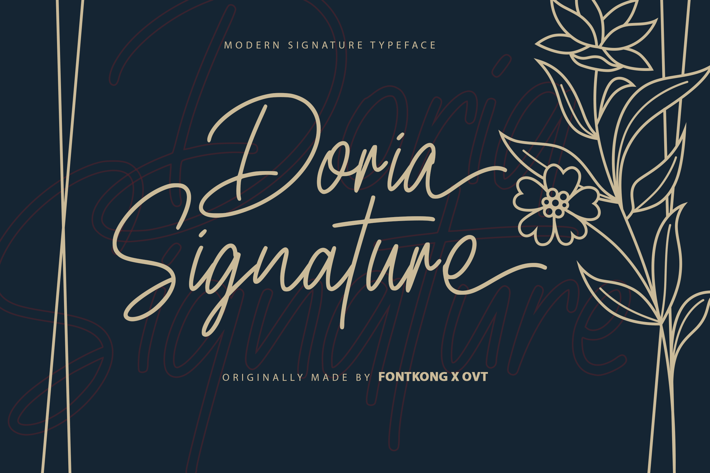
Doria Signature - A Modern Signature Typeface
Doria Signature is an elegant and stylish signature typeface designed to add a personal and sophisticated touch to your design projects. With its fluid strokes and graceful letterforms, Doria Signature is perfect for luxury branding, wedding invitations, stylish logos, and high-end stationery. This font combines the timeless beauty of handwriting with a modern aesthetic, ensuring your work stands out with refinement and class.
Crafted with meticulous detail, Doria Signature features delicate and flowing characters that offer excellent readability and visual appeal. Its elegant design makes it ideal for both headlines and body text, providing a cohesive and polished look across all your visual communications. The font’s versatility allows it to seamlessly integrate into various design contexts, from digital graphics to printed materials.
Elevate your design projects with Doria Signature, a font that embodies the perfect blend of elegance and personal touch. Its unique style and adaptability make it an essential addition to any designer’s toolkit for creating refined and luxurious visuals. Enhance your work with Doria Signature and experience the charm of modern signature typography.
Doria Signature is an elegant and stylish signature typeface designed to add a personal and sophisticated touch to your design projects. With its fluid strokes and graceful letterforms, Doria Signature is perfect for luxury branding, wedding invitations, stylish logos, and high-end stationery. This font combines the timeless beauty of handwriting with a modern aesthetic, ensuring your work stands out with refinement and class.
Crafted with meticulous detail, Doria Signature features delicate and flowing characters that offer excellent readability and visual appeal. Its elegant design makes it ideal for both headlines and body text, providing a cohesive and polished look across all your visual communications. The font’s versatility allows it to seamlessly integrate into various design contexts, from digital graphics to printed materials.
Elevate your design projects with Doria Signature, a font that embodies the perfect blend of elegance and personal touch. Its unique style and adaptability make it an essential addition to any designer’s toolkit for creating refined and luxurious visuals. Enhance your work with Doria Signature and experience the charm of modern signature typography.